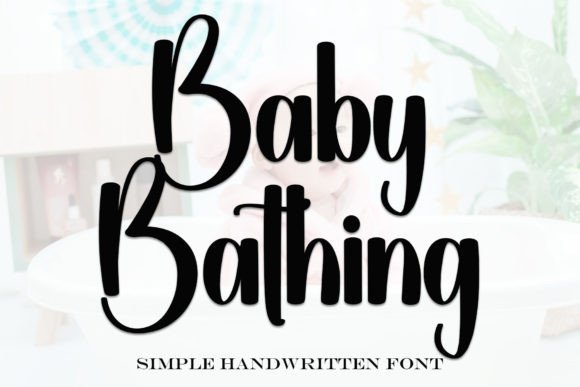
Meet Your New Favorite Font: Baby Bathing Font
Have you ever been in the middle of a design project, struggling to find the perfect font to bring your vision to life? You scroll through countless options, but nothing seems to capture the essence of your idea. That’s where the magic happens – and for many designers, it’s a moment they never forget. In this case, the magic came in the form of Baby Bathing Font, a stunning handwritten font that’s sure to elevate your designs to new heights.
Baby Bathing Font is more than just a trendy font – it’s a work of art that combines classic calligraphy with a contemporary atmosphere. With its impeccable form and elegant feel, it’s the perfect addition to any design project. Whether you’re creating a beautiful brand identity, a stunning wedding invitation, or a captivating advertisement, Baby Bathing Font is sure to add a touch of sophistication and class. For designers, it’s a valuable asset that will help take their designs to the next level.
Baby Bathing Font Key Features
- Unique Characteristics: The Baby Bathing Font features playful, cursive letterforms with a soothing and gentle aesthetic, perfect for baby-related designs and products.
- Character Set: The font includes a comprehensive character set, including uppercase and lowercase letters, numbers, punctuation marks, and special characters.
- Style Variations: The font comes with multiple style variations, including Regular, Italic, Bold, and Bold Italic, allowing designers to add depth and emphasis to their designs.
Baby Bathing Font Review
Overall, I’m impressed with the Baby Bathing Font. It’s a clean, modern font that effectively conveys a soothing and nurturing atmosphere, perfect for baby-related products.
- The font’s rounded edges and gentle curves make it easy to read and visually appealing.
- The font’s soft, pastel colors (optional) add a touch of warmth and sweetness to the design.
- The font is highly customizable, allowing designers to adjust the size, color, and style to fit their specific needs.
- The font may not be suitable for more formal or professional designs, as it can come across as too playful or cutesy.
- The font’s limited character set may require designers to use workarounds or additional fonts to achieve the desired design.
- The font’s design may not be scalable to very large or very small sizes without losing its legibility or charm.
In conclusion, the Baby Bathing Font is a great choice for designers looking to create a soft, nurturing atmosphere for baby-related products. While it may have some limitations, its versatility and customization options make it a valuable addition to any designer’s toolkit.
Some common use cases for the Baby Bathing Font include:
Creating nursery decor and invitations
Designing baby product packaging and labels
Developing educational materials and resources
Use the Baby Bathing Font to add a touch of whimsy and playfulness to your designs.
Experiment with different font sizes, colors, and combinations to achieve the desired effect.